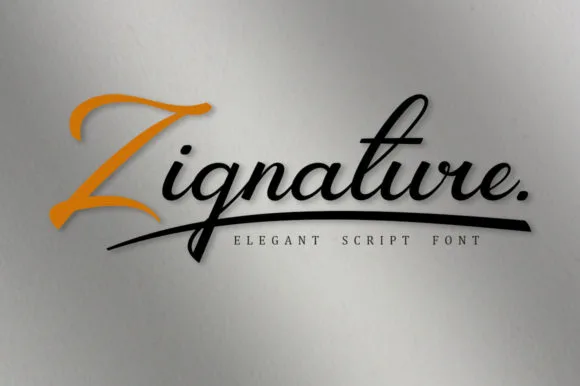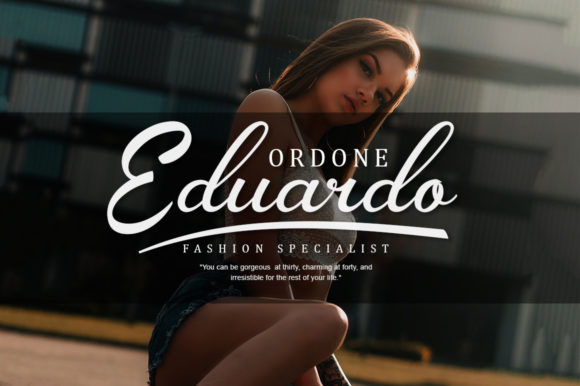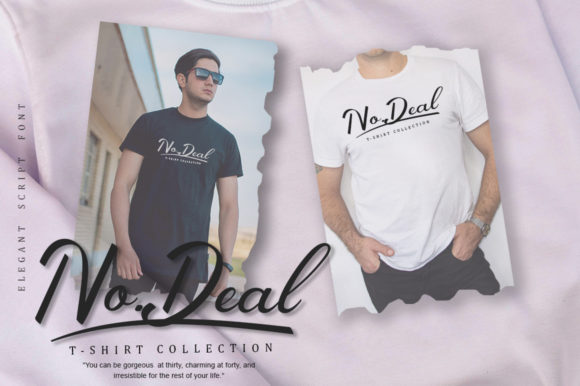
About Zignature Font
Zignature is a high-quality script font, with a natural & fashionable flow. Zignature Font is best for many specific tasks such as trademarks & branding, invitation, stationery, wedding ceremony designs, social media posts, advertisements, product packaging, product designs, label, photography, one-of-a-kind activities, or anything.